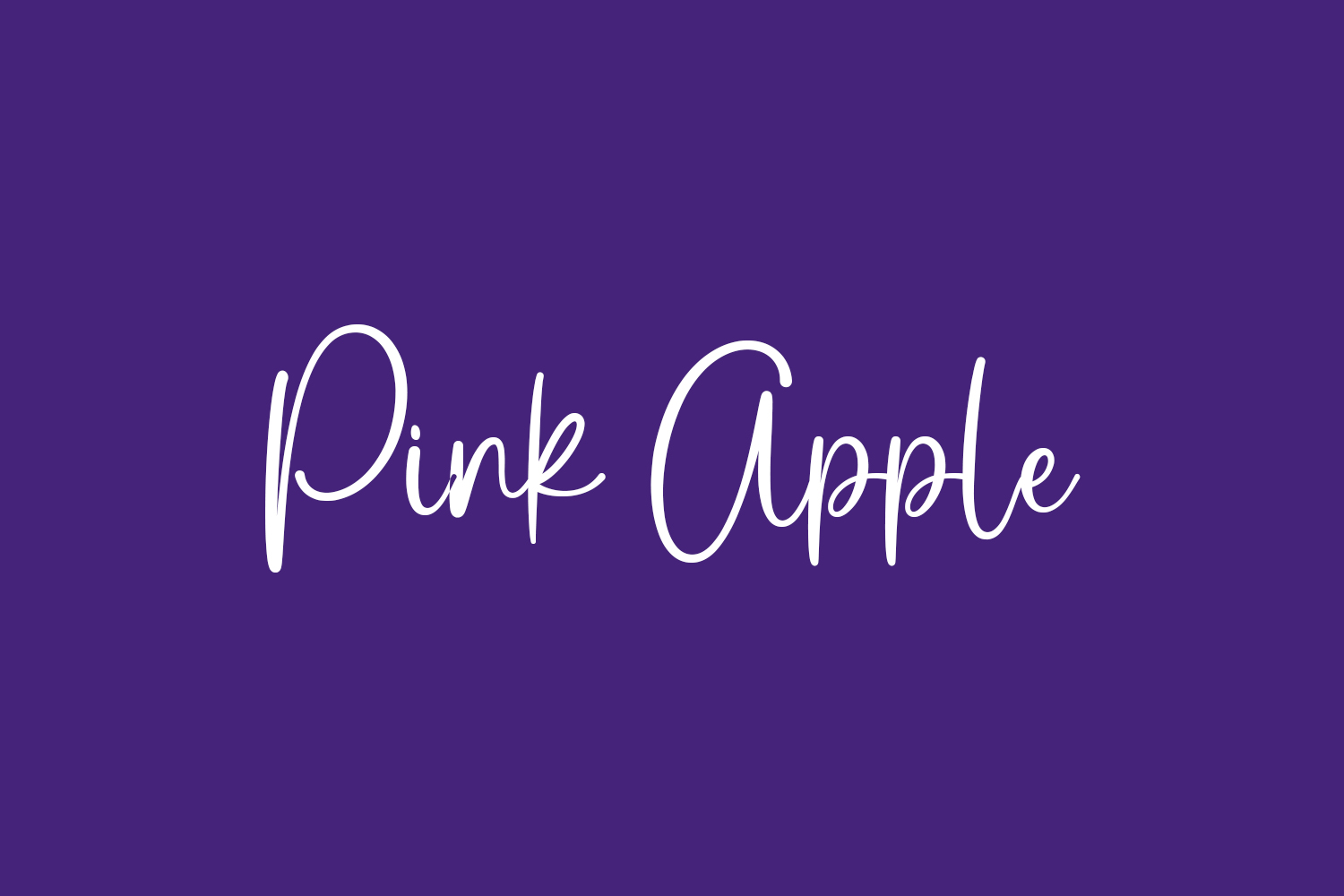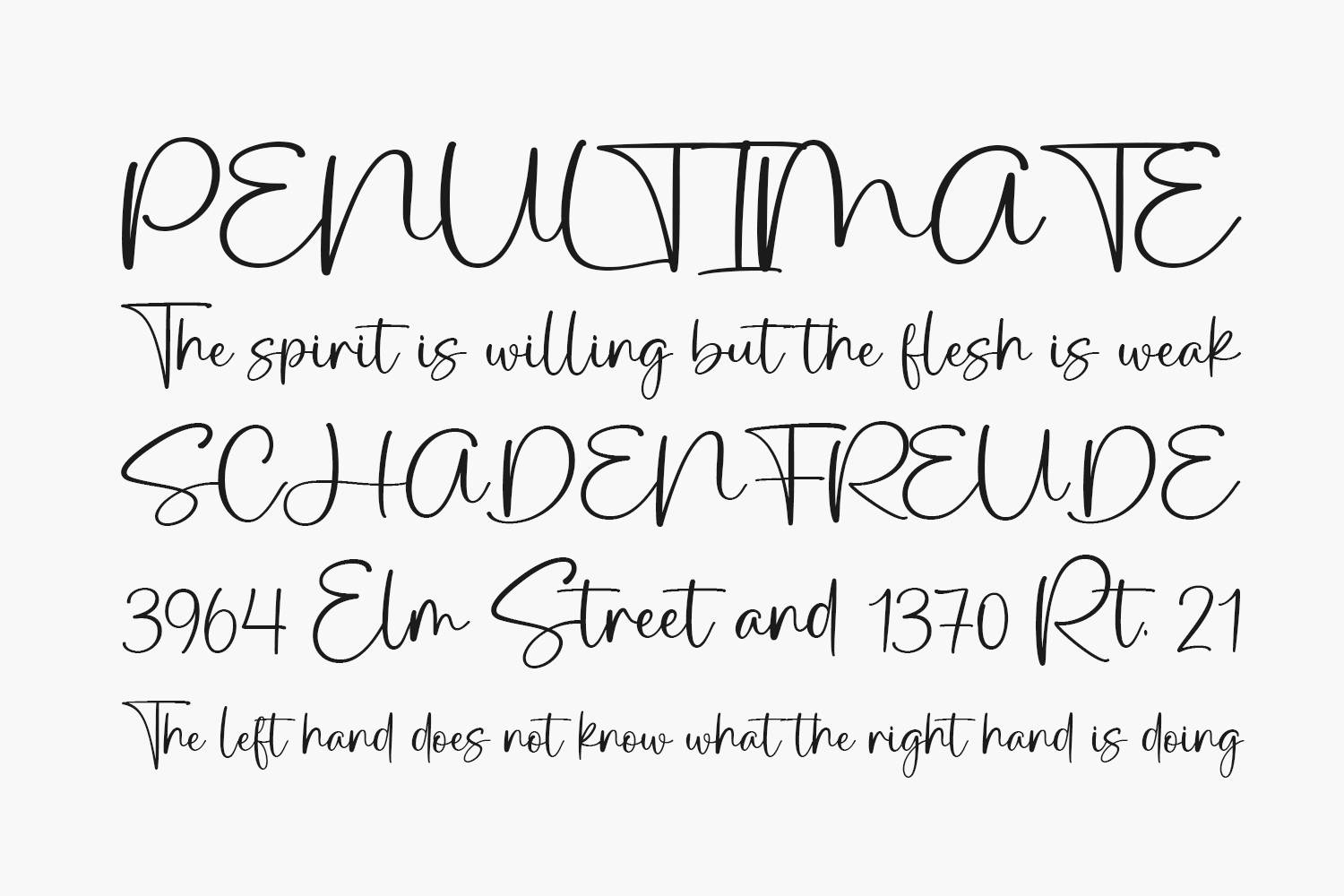
Introducing Pink Apple Free Font, a charming and graceful script font that emanates an air of elegance and sophistication. This meticulously crafted font is specifically designed to provide a beautiful and rejuvenating aesthetic to your designs. Whether you’re working on invitations, branding, or any creative project, Pink Apple adds a touch of loveliness that will captivate your audience. Experience the refreshing allure of Pink Apple and elevate your designs with its delicate charm and timeless appeal. Pink Apple Free Font is free for personal use only. Please purchase the full version for commercial use.
Designed by Ramli Setiadi